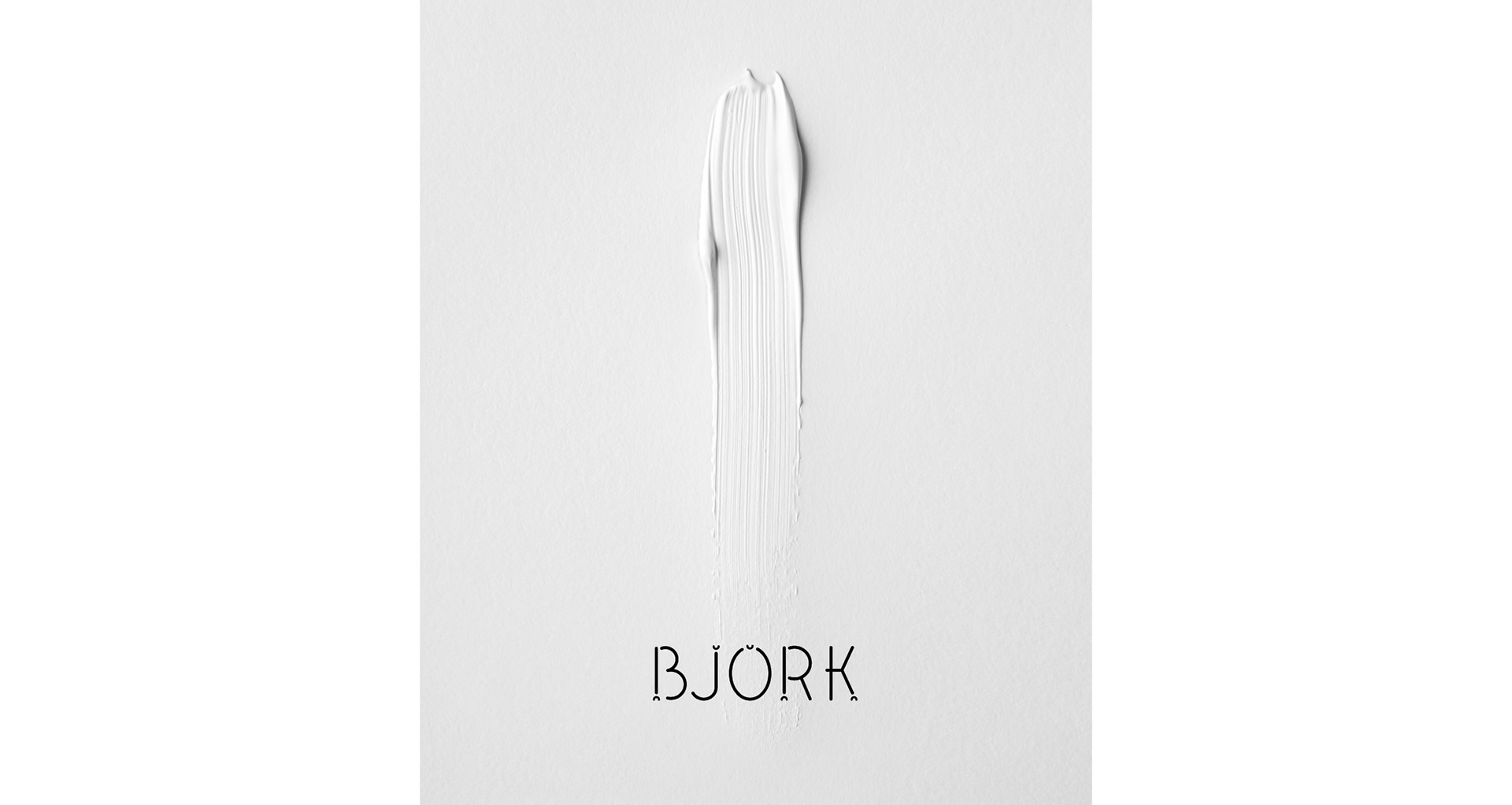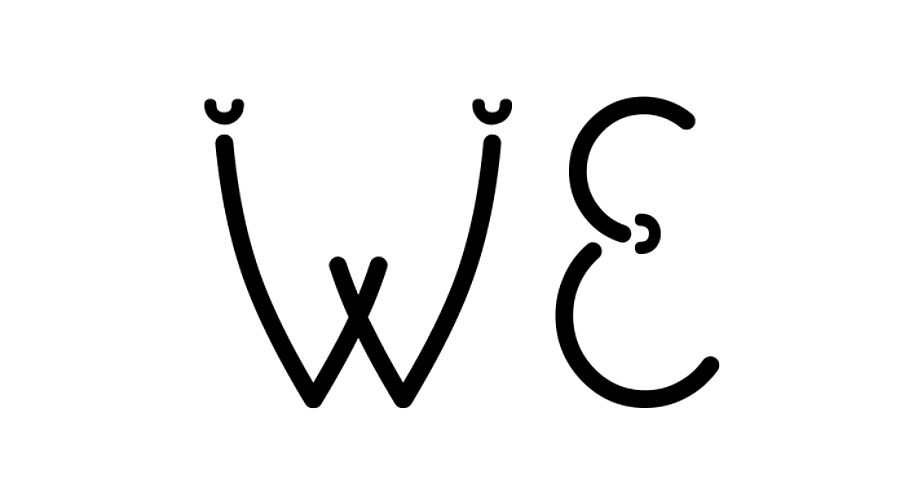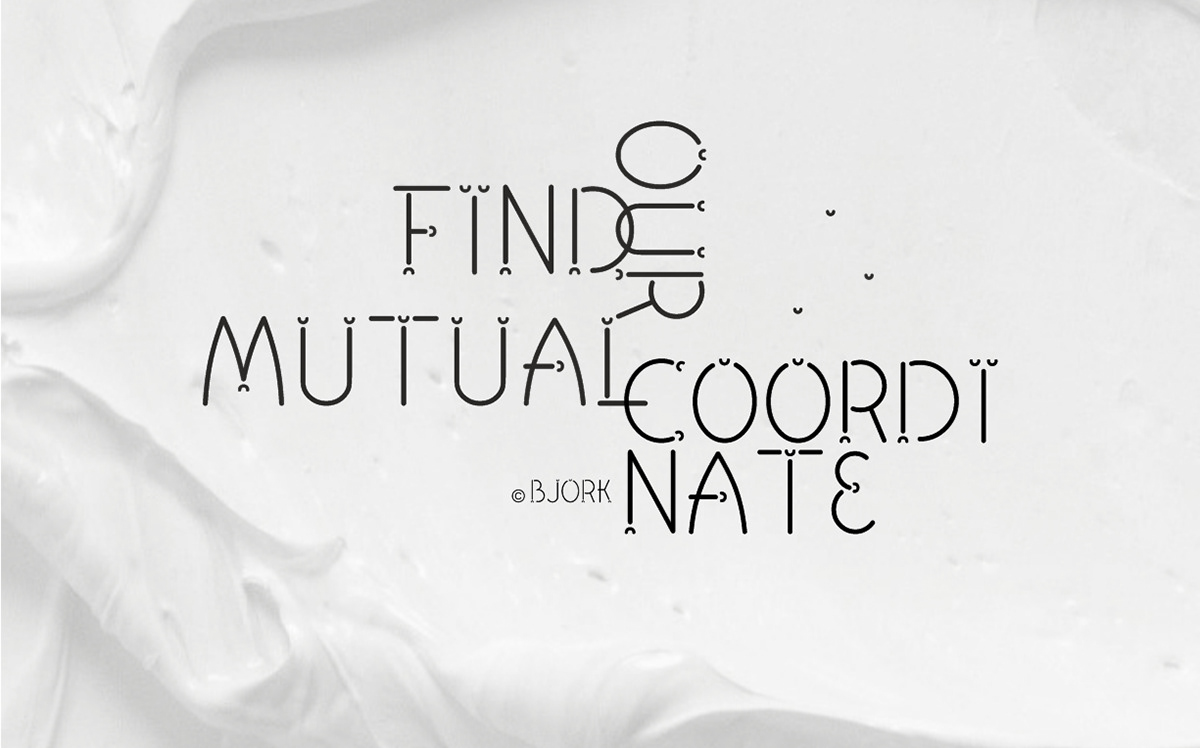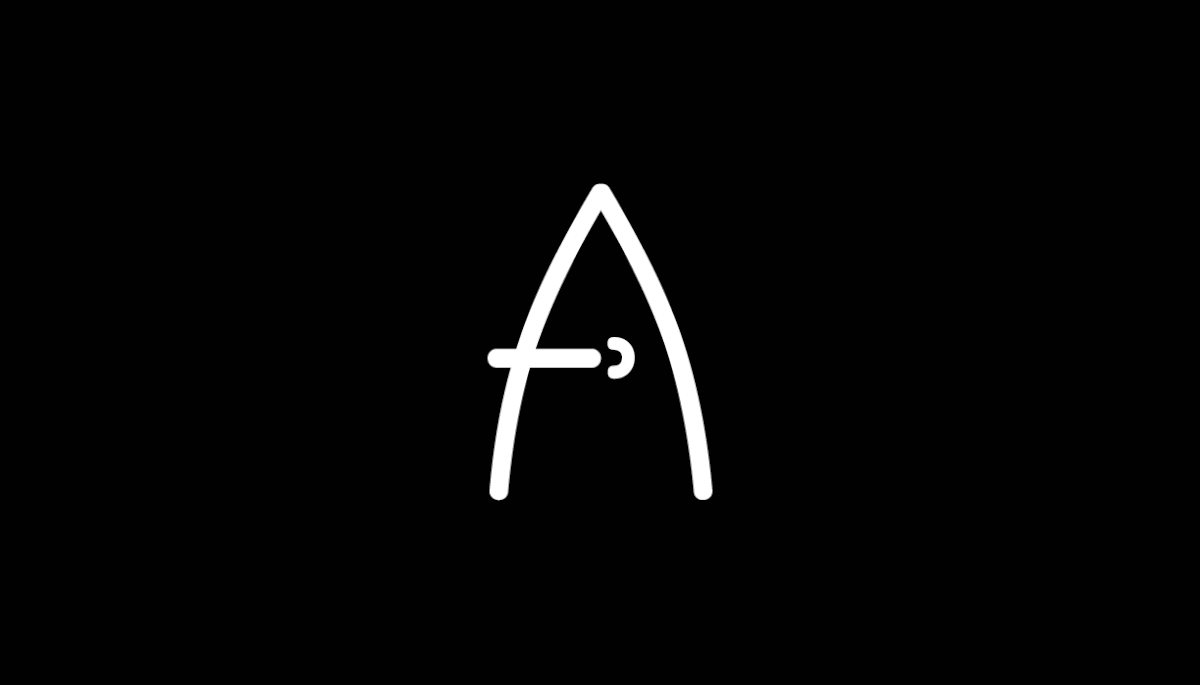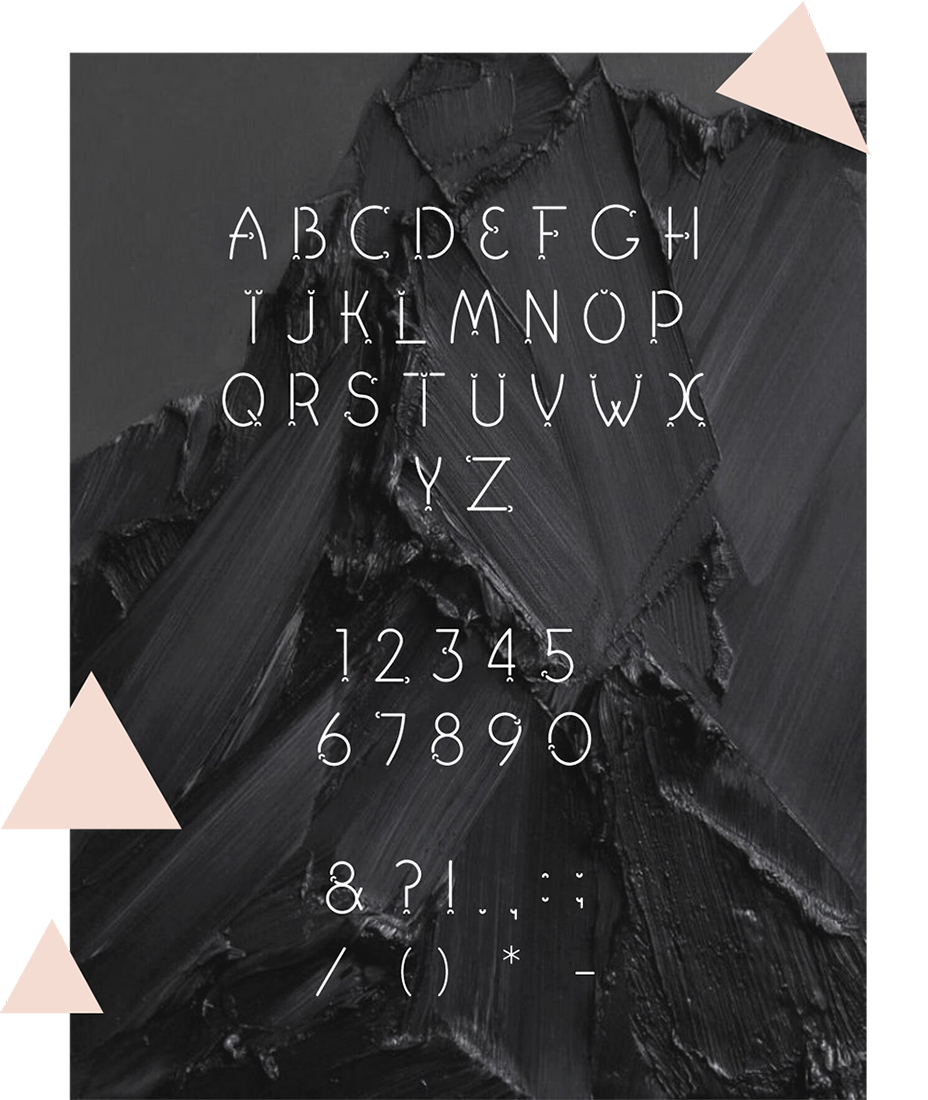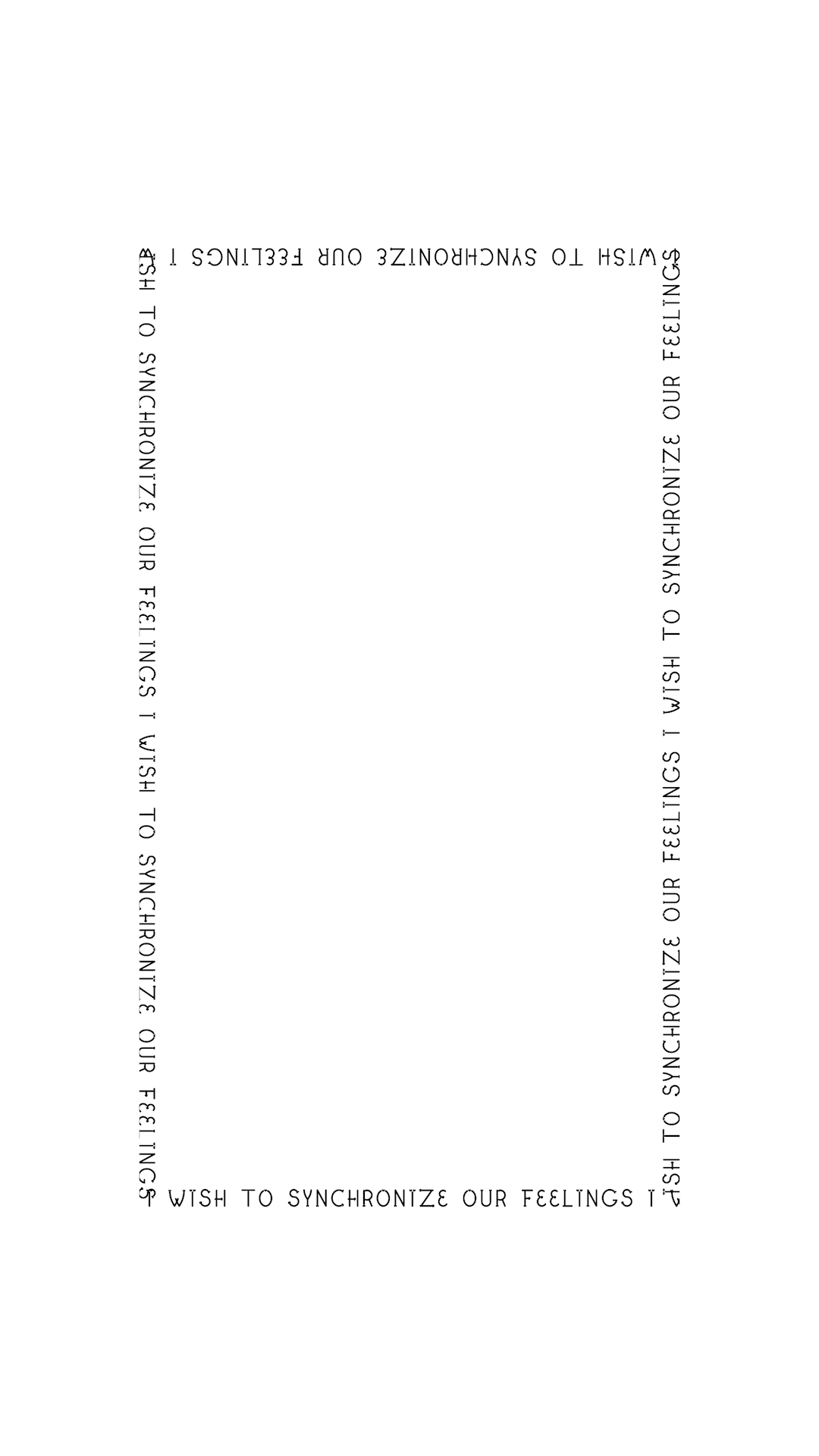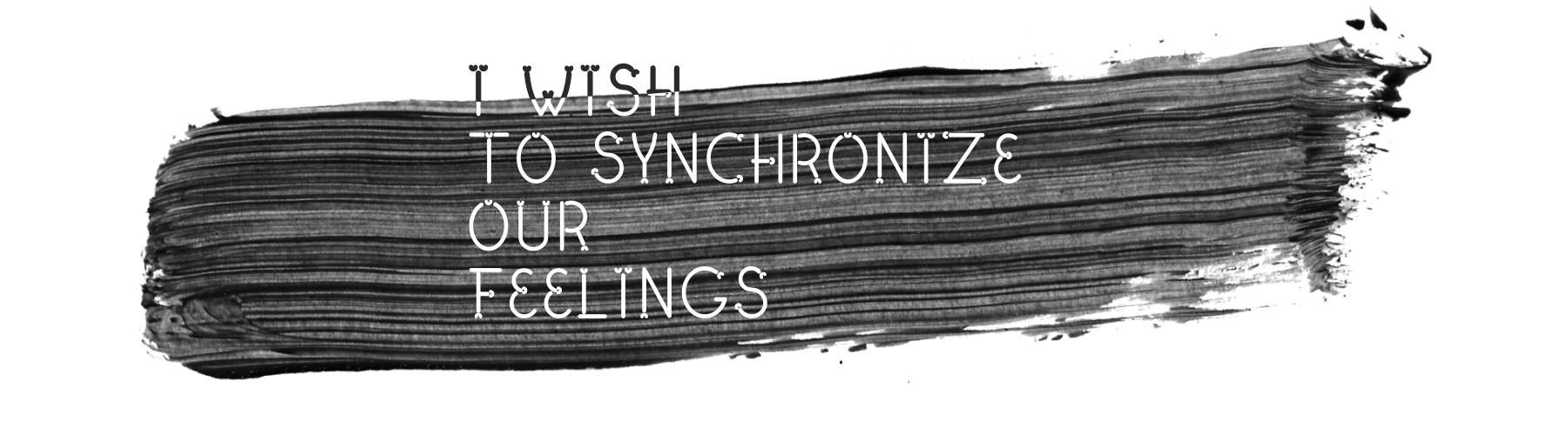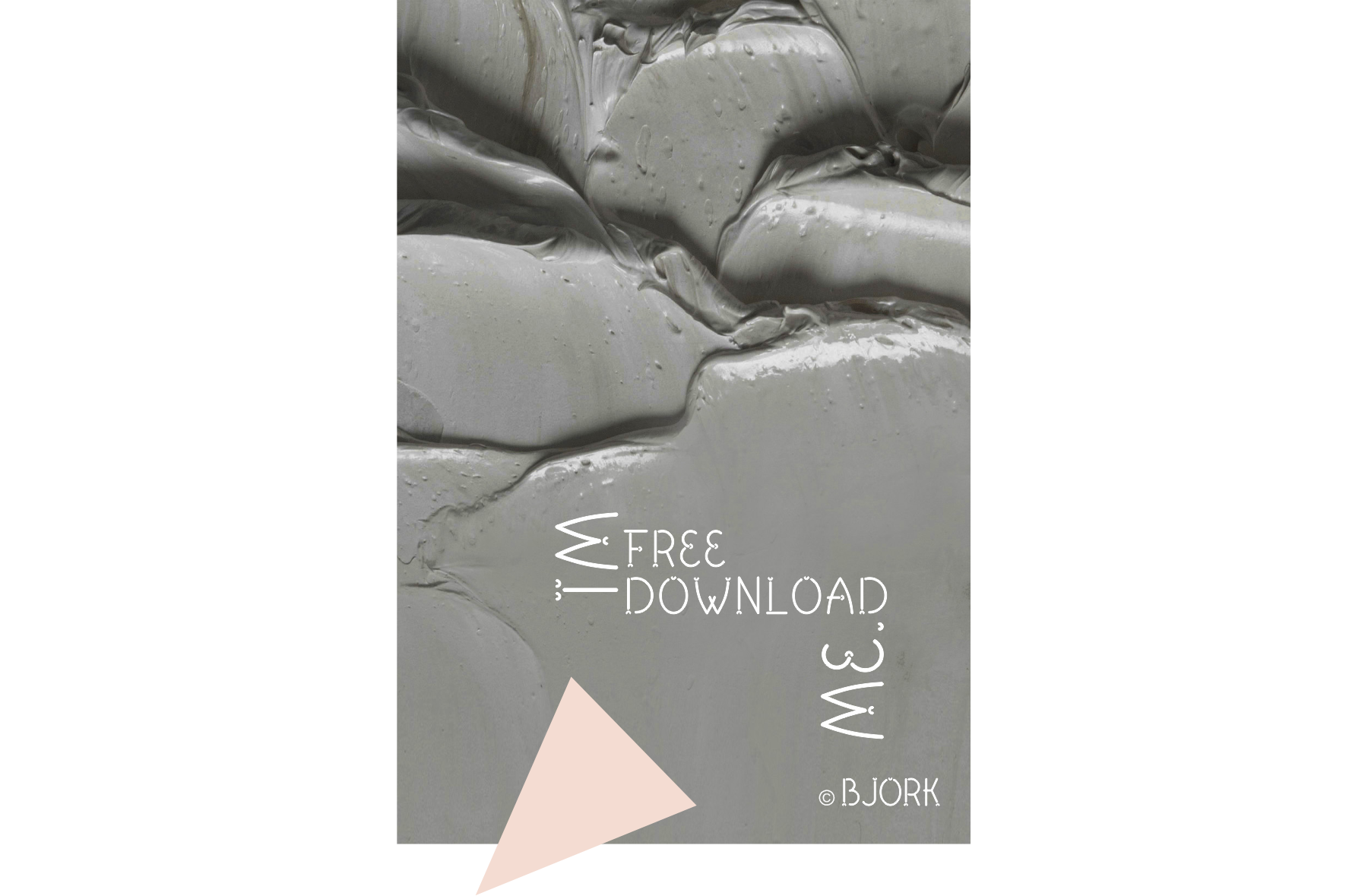
BJORK :// free font
​​​​​​​BJORK by Oxana Yurie
is a free designer font for you. Font consists of one unique font styles — regular. It's a geometric forms sans serif with plain curves and graphic elements ◠ ◡ . Bjork is most suitable for headlines of all sizes and decorating.